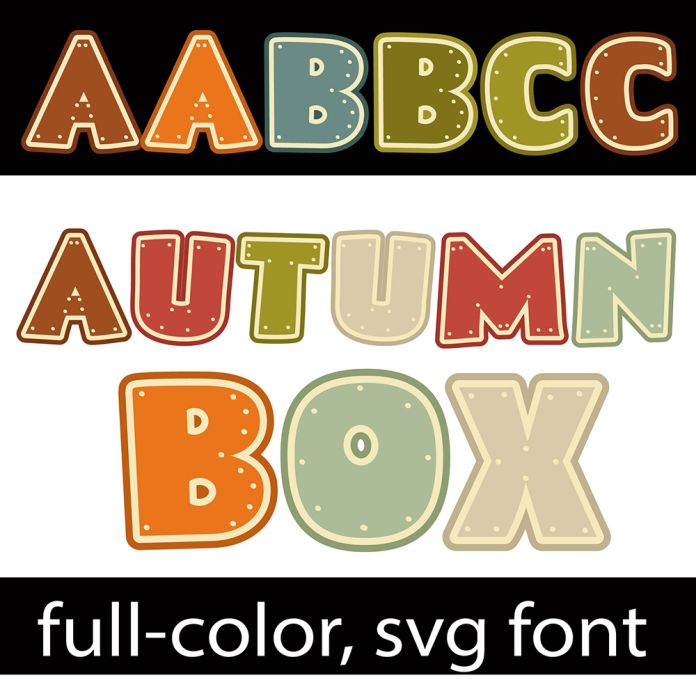
This full-color font features a blocky sans serif with rivets in an autumn color palette. There is an alt case with additional colors you can access through your system's character map. This font works best for titles, displays, posters and more. Please note color fonts will show as black in non compatible programs. This font type is compatible with Silhouette Studio.